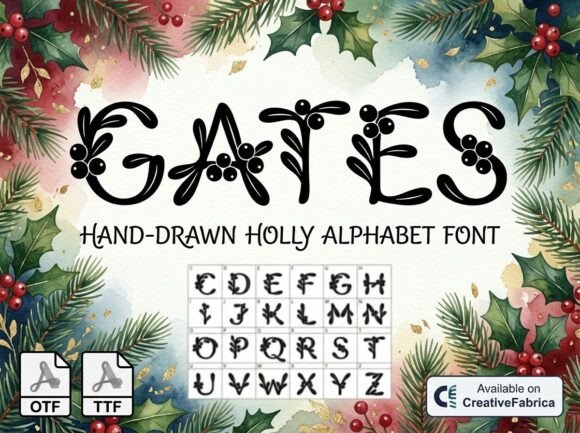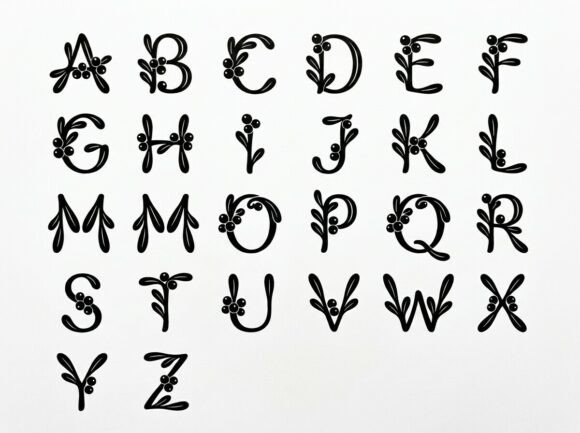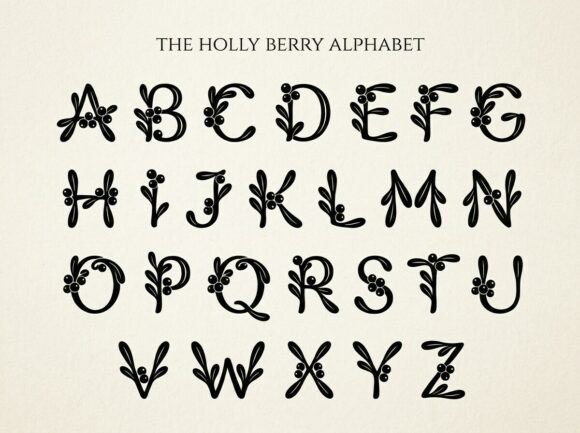
Gates Font: Elevate Your Holiday Designs with Timeless Charm
The holiday season is upon us, and with it comes the desire to create visually stunning designs that evoke the magic and warmth of this special time of year. For designers and crafters seeking a font that embodies the essence of the season, look no further than Gates Font. This sophisticated mistletoe and berry display font is built for timeless holiday charm, making it the perfect addition to your design arsenal.
A Masterful Blend of Geometry and Botany
Gates Font masterfully pairs graceful, monolinear letterforms with delicate, hand-drawn botanical motifs of curling mistletoe leaves and festive berry clusters. This refined geometry and soulful, organic rhythm make it an exceptional choice for a variety of design applications. Whether you’re creating bespoke holiday greeting cards, luxury winter wedding stationery, artisanal seasonal packaging, or chic festive editorial headers, Gates Font delivers a sense of polished artisanal prestige and classic holiday grace to your visual identity.
Unleash Your Creativity with Gates Font
With Gates Font, every word carries a signature look of seasonal warmth and devotion. This versatile font is perfect for designers and crafters who want to add a touch of elegance and sophistication to their holiday designs. Imagine creating:
- Bespoke holiday greeting cards that exude warmth and personality
- Luxury winter wedding stationery that showcases your attention to detail
- Artisanal seasonal packaging that stands out on store shelves
- Chic festive editorial headers that capture the essence of the season
The Benefits of Using Gates Font
So why choose Gates Font for your holiday designs? Here are just a few benefits:
- Timeless charm: Gates Font is designed to evoke the classic feel of traditional holiday designs, ensuring your creations never go out of style
- Versatility: From greeting cards to editorial headers, Gates Font is perfect for a wide range of design applications
- Elegance and sophistication: Gates Font’s refined geometry and botanical motifs add a touch of luxury to any design
- Easy to use: Gates Font is designed to be user-friendly, making it easy to incorporate into your design workflow
Tips for Getting the Most Out of Gates Font
To ensure you get the most out of Gates Font, here are a few tips:
- Experiment with different sizes and colors: Gates Font looks stunning in a variety of sizes and colors, so don’t be afraid to experiment and find the perfect combination for your design
- Pair with complementary fonts: Gates Font pairs beautifully with a range of fonts, so try combining it with complementary fonts to create a unique and eye-catching design
- Use it sparingly: Gates Font is a statement font, so use it sparingly to add emphasis and create visual interest in your design
Gates Font is a sophisticated and elegant font that embodies the magic and warmth of the holiday season. With its refined geometry, botanical motifs, and timeless charm, it’s the perfect addition to any designer’s or crafter’s arsenal. Whether you’re creating bespoke holiday greeting cards, luxury winter wedding stationery, or artisanal seasonal packaging, Gates Font is sure to deliver a sense of polished artisanal prestige and classic holiday grace to your visual identity. So why wait? Celebrate the magic of the season with Gates Font and elevate your holiday designs to new heights.